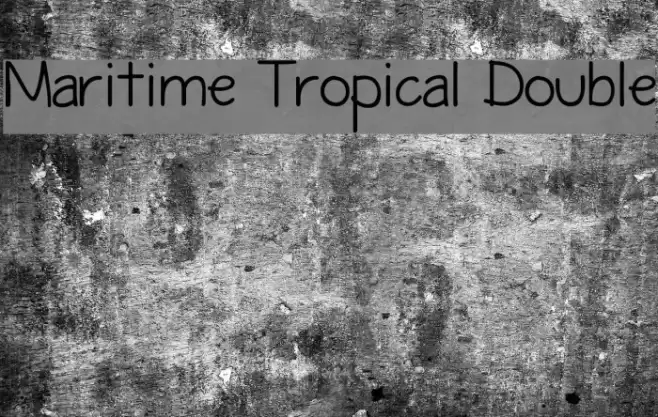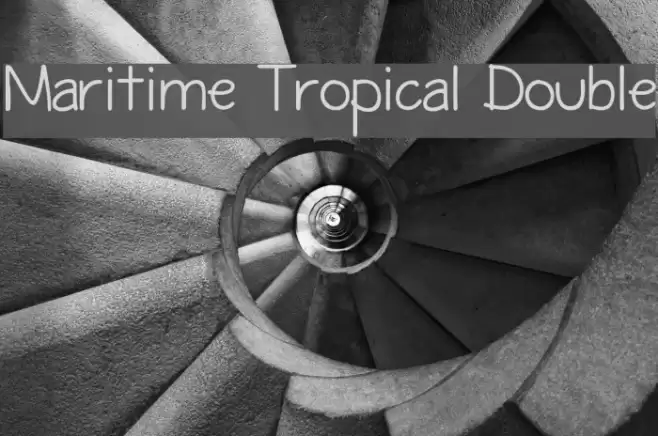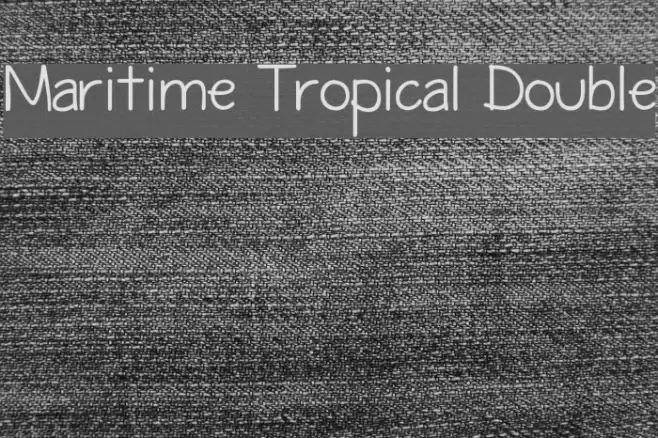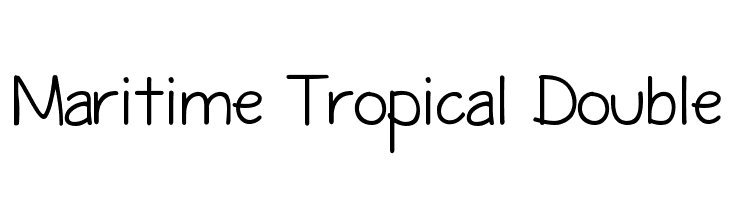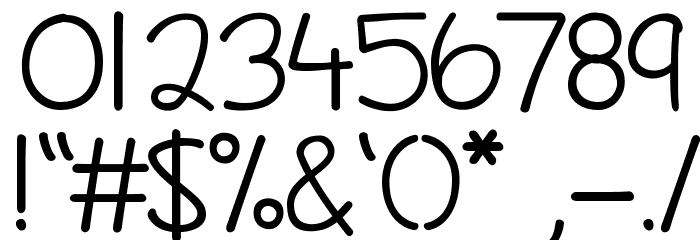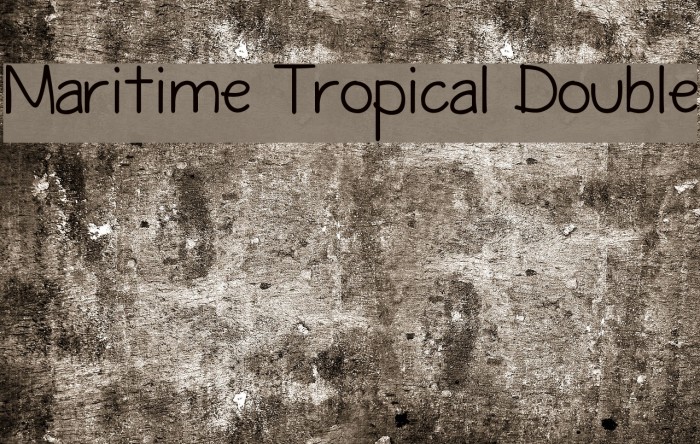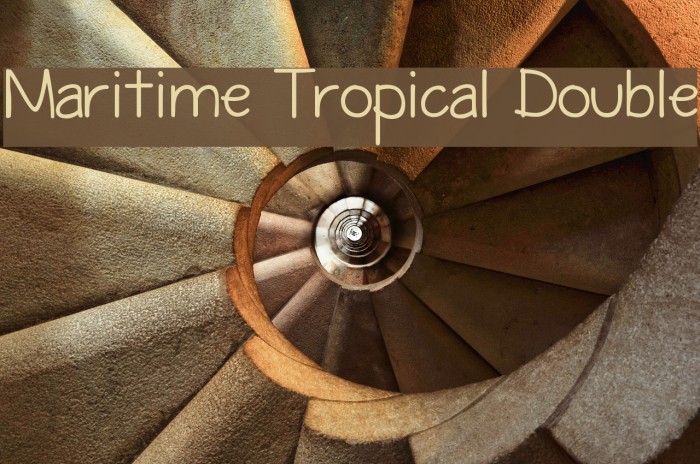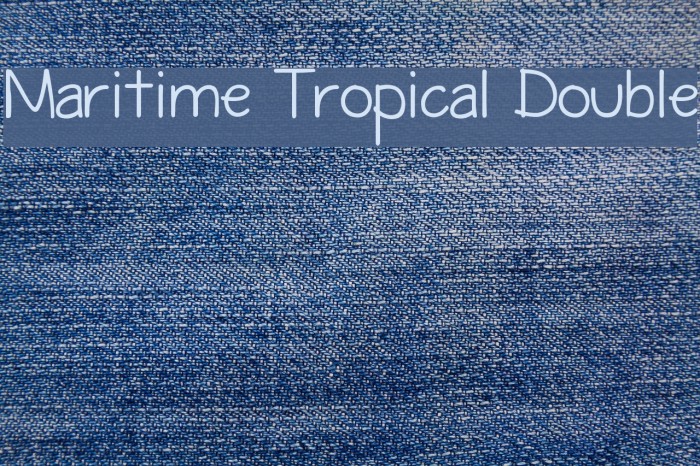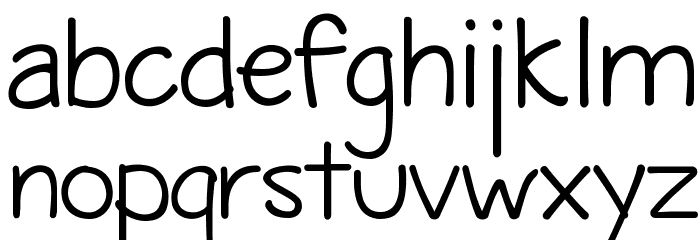
Maritime Tropical Double Font
Maritime Tropical Double Description
This font features a playful and casual style with rounded edges and a handwritten feel. The characters are evenly spaced, providing a clean and approachable look. The uppercase letters are slightly taller than the lowercase, maintaining a consistent width throughout. The numerals are clear and easy to read, matching the overall friendly aesthetic. Special characters are well-integrated, enhancing the font's versatility. This design is ideal for projects that require a personal touch or a relaxed atmosphere.
A playful, rounded font with a handwritten style and even spacing from Uncategorized fonts.
- Proposed Projects: Ideal for children's books, greeting cards, casual branding, and social media graphics.
- Overall Style: Casual
- Use Case: Headlines, Logos, Informal Text